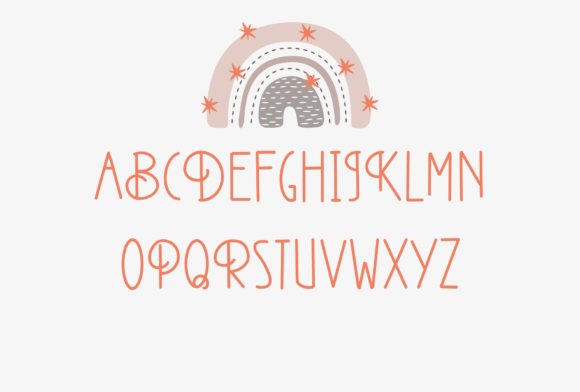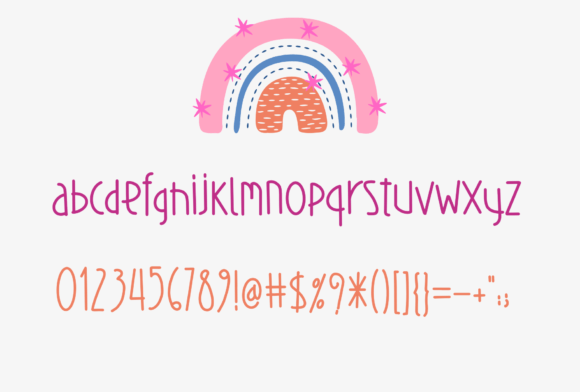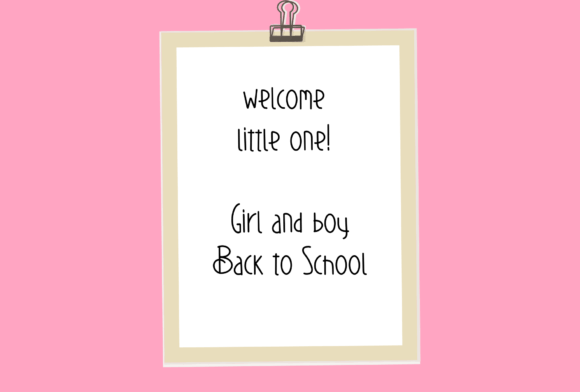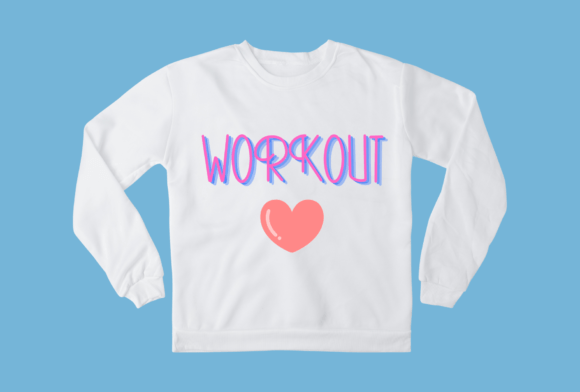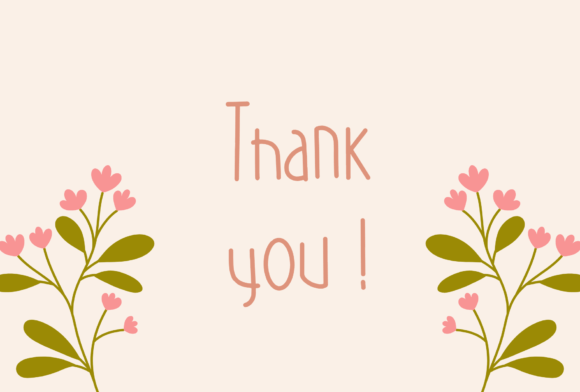
Discover the Joy of Home School Font
Have you ever found yourself surrounded by colorful markers, scattered papers, and a mix of excitement and stress as you plan a creative project? You’re not alone! Many designers experience this feeling, but what if we told you there’s a secret ingredient that can elevate your work and bring a sense of joy to your designs?
Meet Home School Font, a charming and relaxed handwritten font that’s perfect for adding a touch of whimsy to your projects. This lovely font is designed to bring a sense of playfulness and romance to your designs, making it a valuable addition to any designer’s toolkit. With its gentle curves and organic feel, Home School Font is sure to delight both you and your audience.
Whether you’re working on a wedding invitation, a children’s book, or a social media campaign, Home School Font is the perfect choice to add a personal touch and make your designs truly special. So why not give it a try and see how this delightful font can bring a smile to your face and a touch of magic to your work?
Key Features of Home School Font
- Font Family: A custom-designed font family specifically created for educational purposes, with a clean and modern aesthetic.
- Unique Characteristics: Features a unique set of ligatures and swashes specifically designed to enhance readability and visual appeal, making it an ideal choice for educational materials.
Home School Font Review
I recently had the chance to work with the Home School Font, and I must say it’s a unique and interesting typeface. ✨ Here are some of the things that work well:
- Unique style: The font has a distinct, handwritten feel that can add a personal touch to any project.
- Highly customizable: The font comes with a range of OpenType features and stylistic sets that allow for a high degree of customization.
- Good legibility: Despite its handwritten feel, the font is surprisingly easy to read, even at smaller font sizes.
- Not suitable for body text: Due to its informal, handwritten feel, the font may not be the best choice for large blocks of text.
- Limited language support: The font only includes support for a limited range of languages, which may be a problem for projects that require multilingual support.
- May require adjustments: Depending on the project, you may need to adjust the font settings or use additional design elements to get the desired look.
Overall, I think the Home School Font is a great choice for projects that require a unique, handwritten feel. While it may not be suitable for all projects, it can be a great addition to a designer’s toolkit.
Tips for Getting the Most Out of Home School Font
Use Home School Font for educational materials such as worksheets, lesson plans, and study guides.
Combine Home School Font with other fonts to create a visually appealing and engaging design.
Experiment with different font sizes and styles to create a unique look and feel.
Home School Font is ideal for:
Creating educational materials for students of all ages.
Designing worksheets and study guides for math, reading, and science classes.
Developing lesson plans and teaching materials for homeschooling or traditional classrooms.
Alternatives to Home School Font
Playfair Display is a luxurious, high-end serif font ideal for use in titles, headings, and other display text. It features intricate details and elegant lines, making it perfect for formal or high-end branding. Unlike Home School Font, which is more casual and playful, Playfair Display exudes sophistication and refinement.